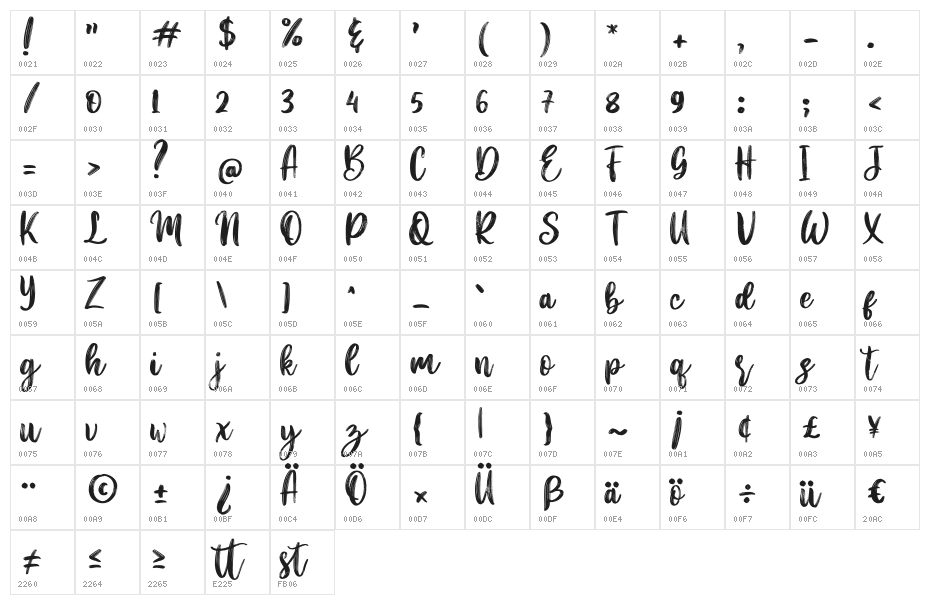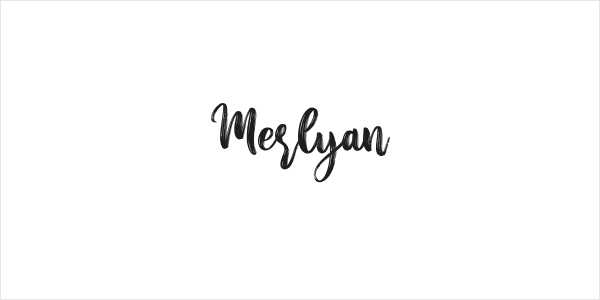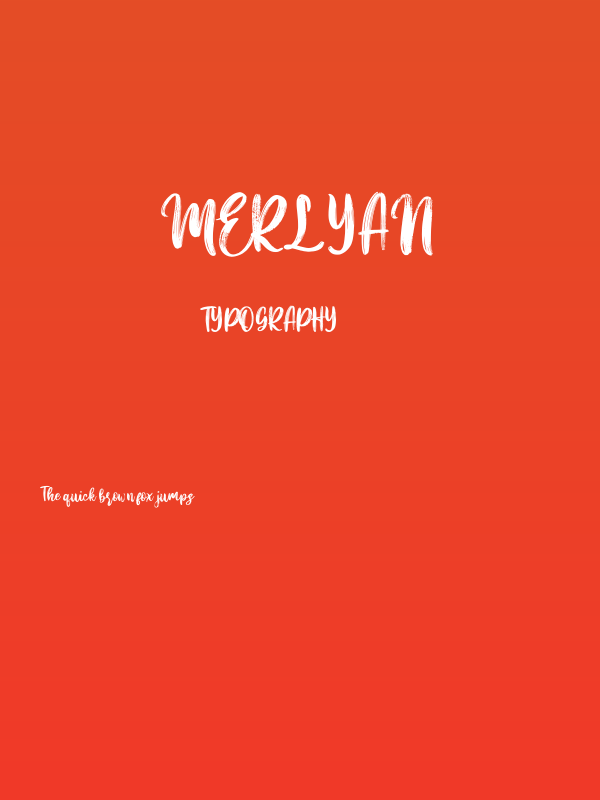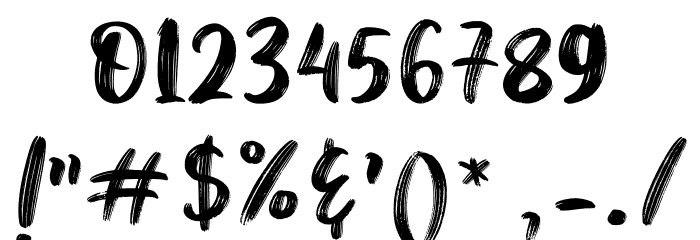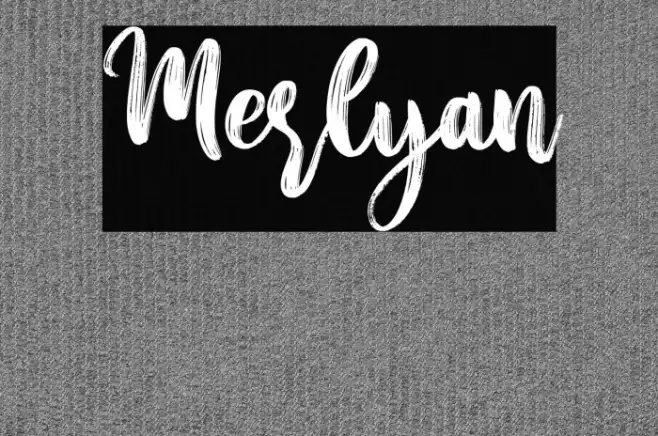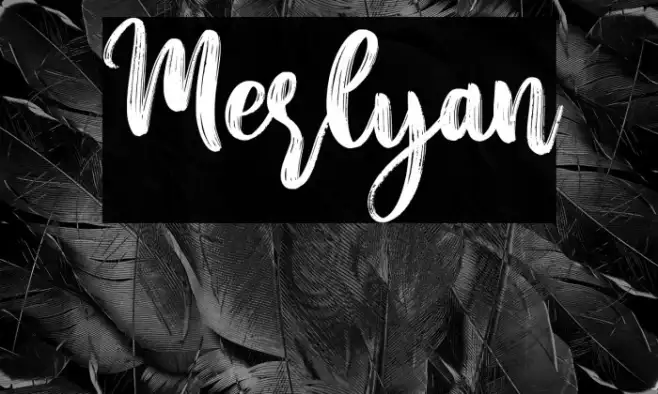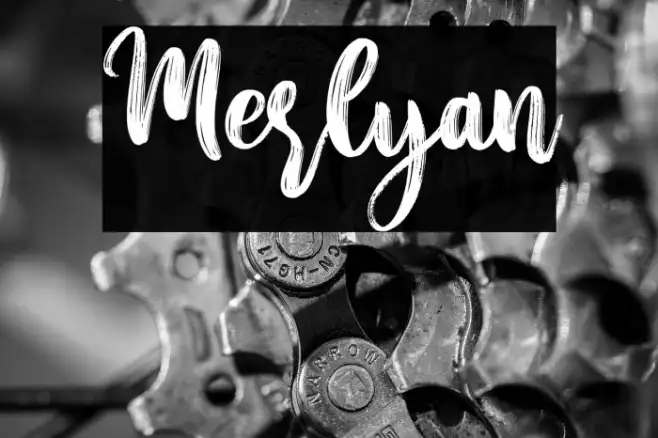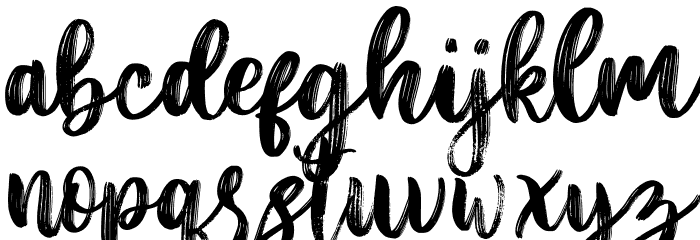
Merlyan Font
Merlyan Description
This font features a bold and expressive brush script style, characterized by its dynamic and fluid strokes. The letters are crafted with a sense of movement and energy, giving it a lively and artistic appearance. The uppercase and lowercase letters maintain a consistent brush texture, adding a handcrafted feel to the design. The numerals and special characters follow the same stylistic approach, ensuring a cohesive look across all elements. This font's unique brush strokes create a sense of depth and texture, making it stand out in any design project.